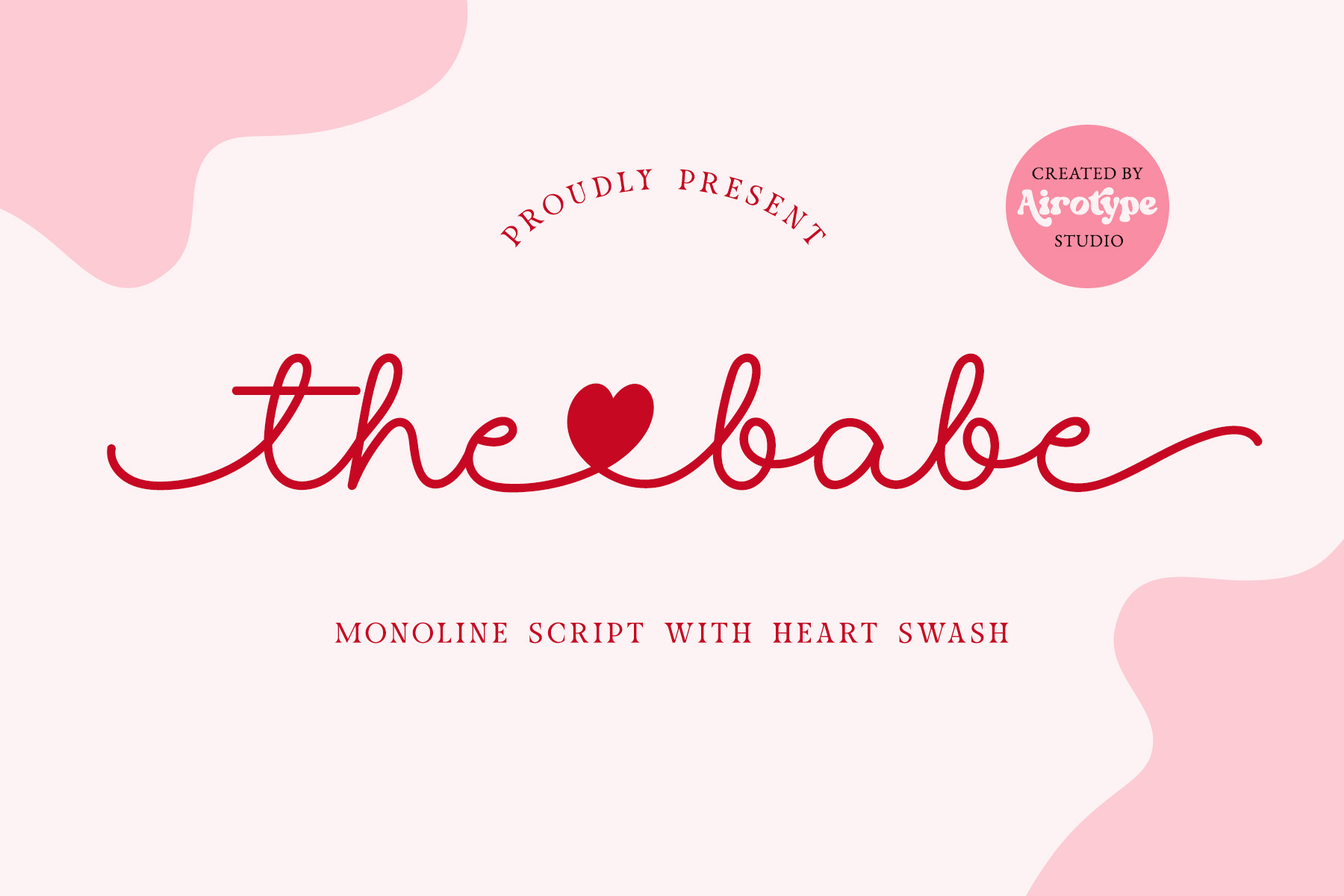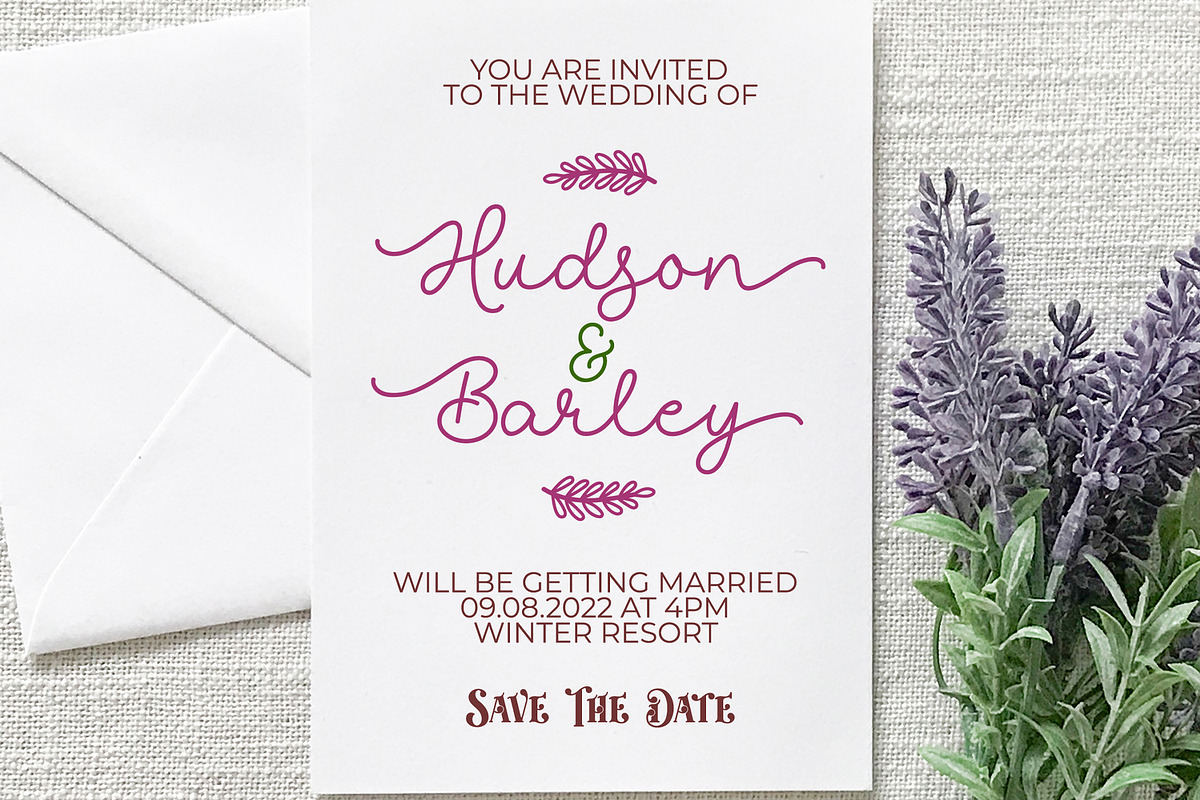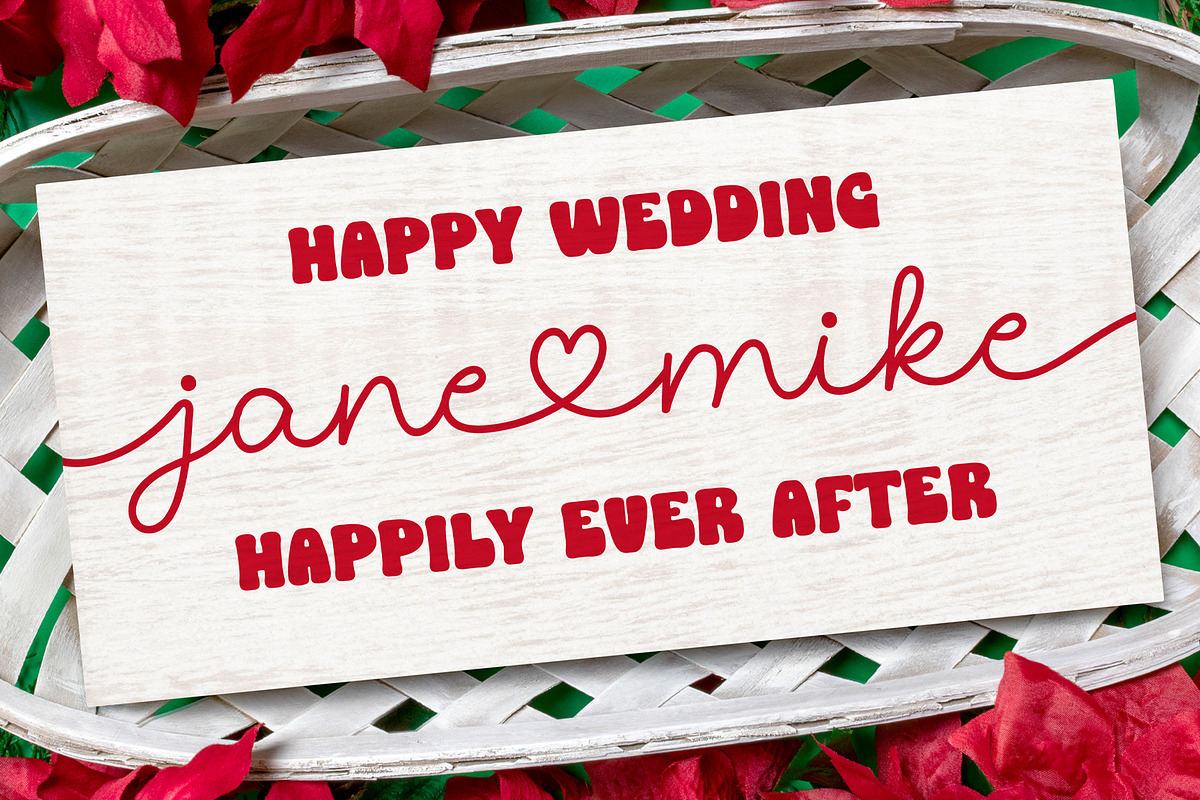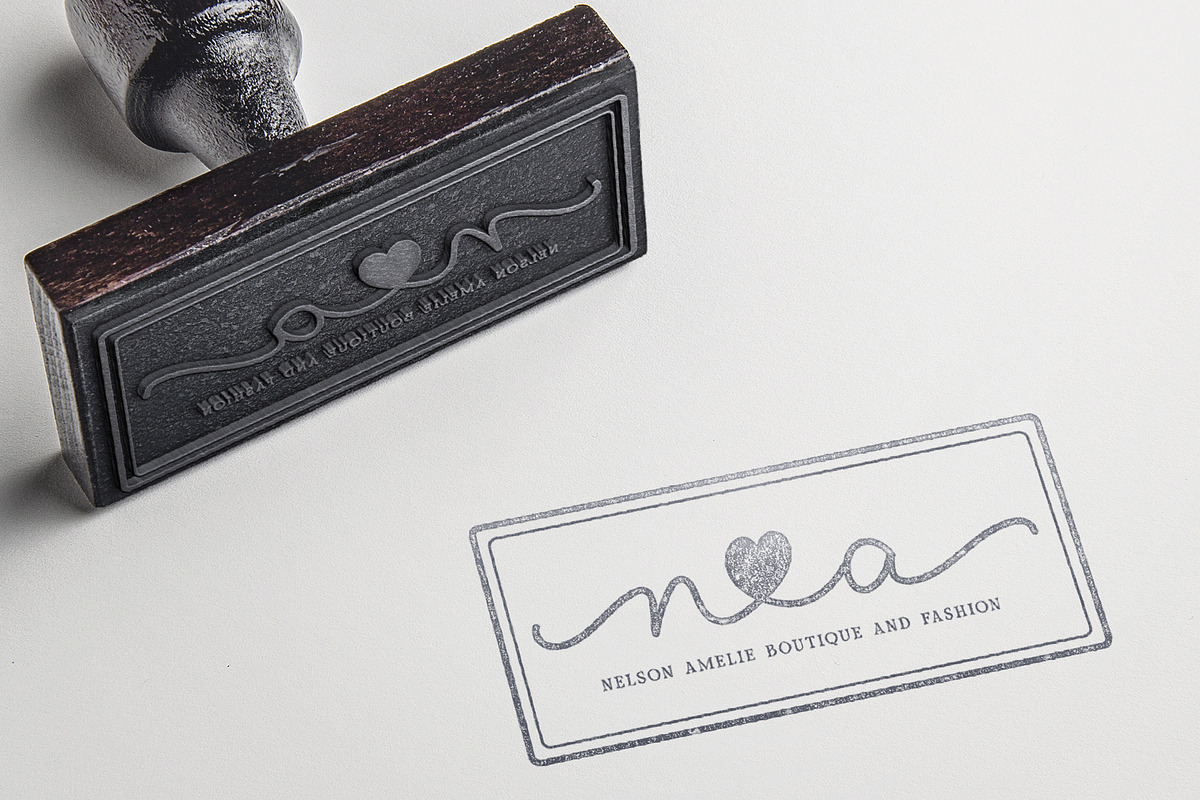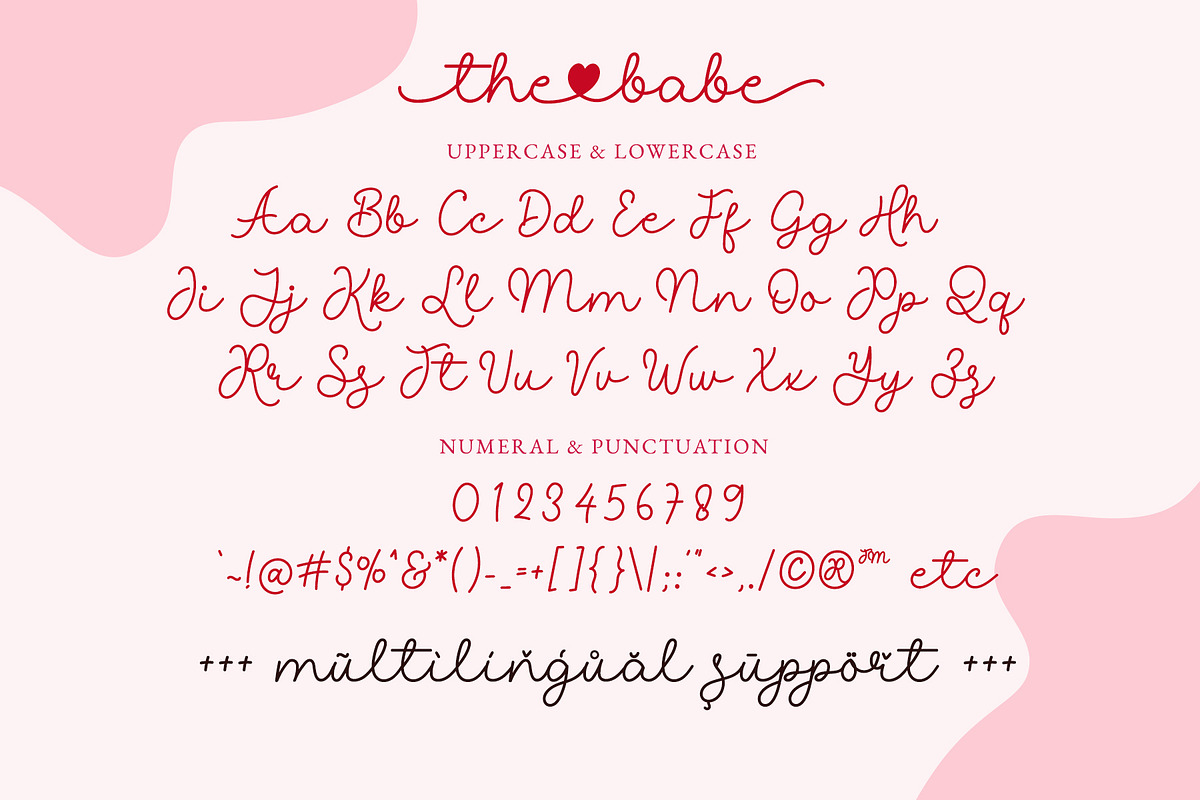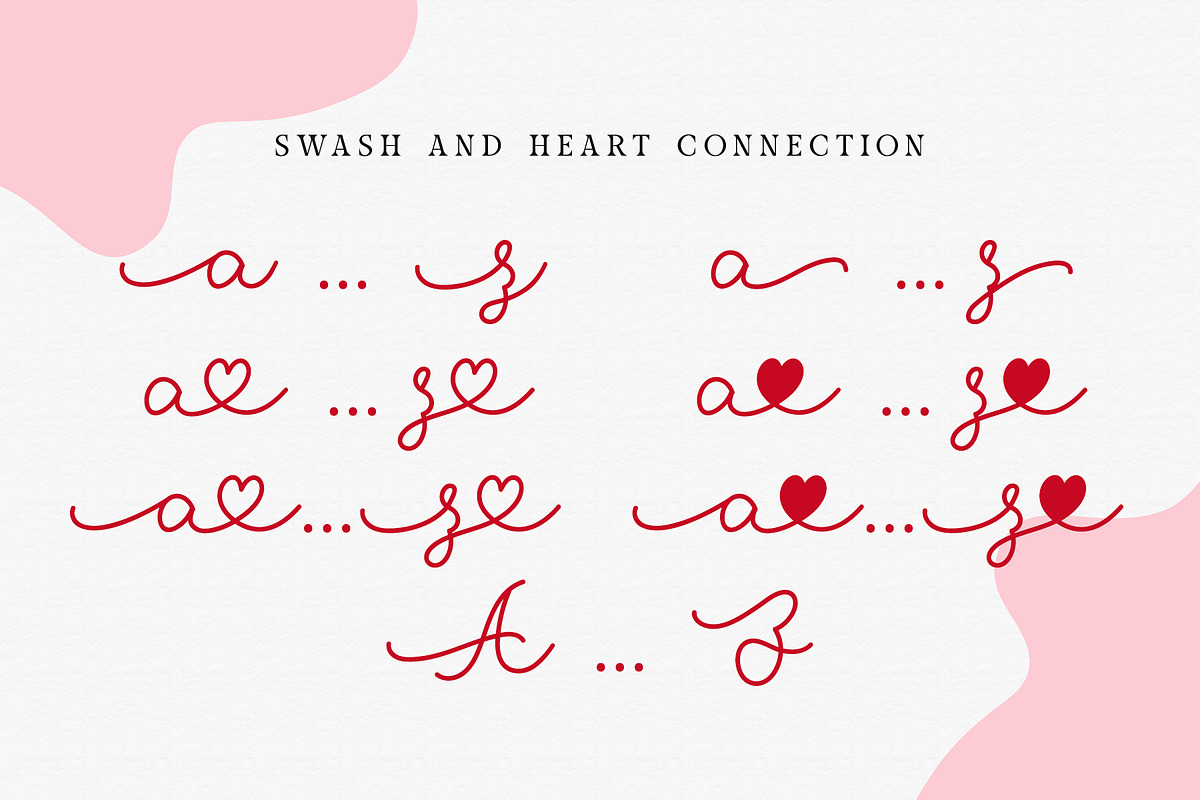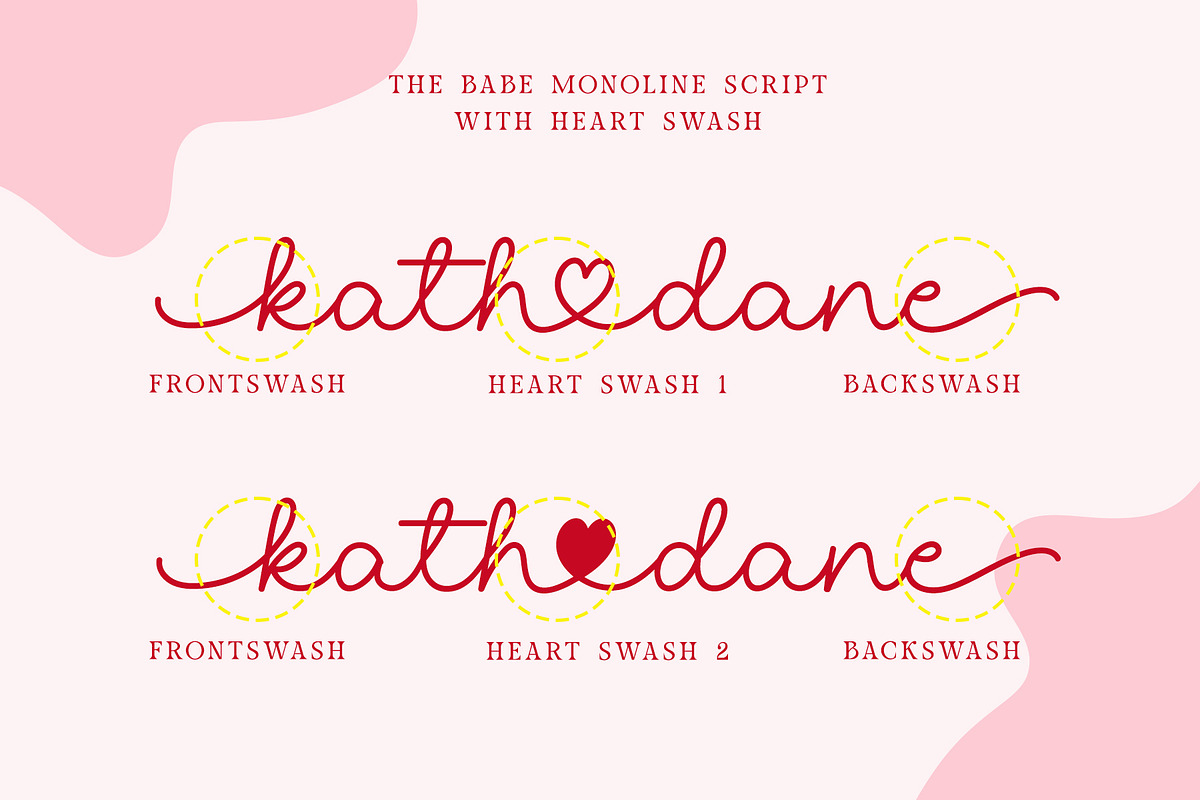
The Babe - Monoline Heart Font
The Babe is monoline handwritten font with heart swash. This monoline font has sweet and elegant touch.
Also, this font has tail for its front swash and back swash.
The Babe is suitable font for design that needs cute and lovely vibes, such as Valentines Day, wedding, farmhouse design, and many others.
Uppercase and Lowercase (includes swash)
Numeral and Punctuation
Most Multilingual Accent